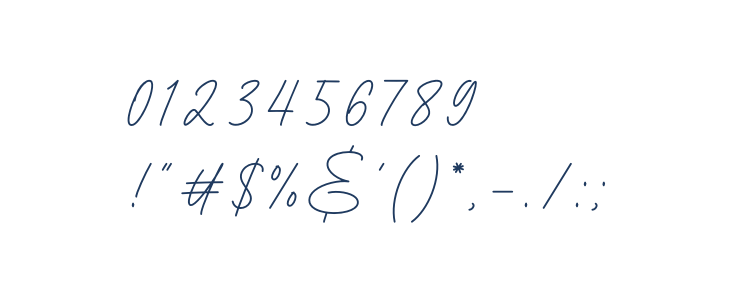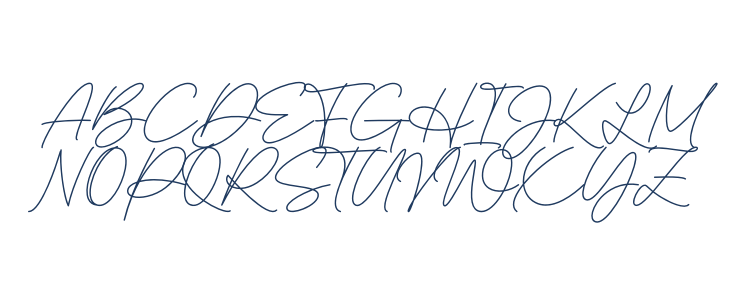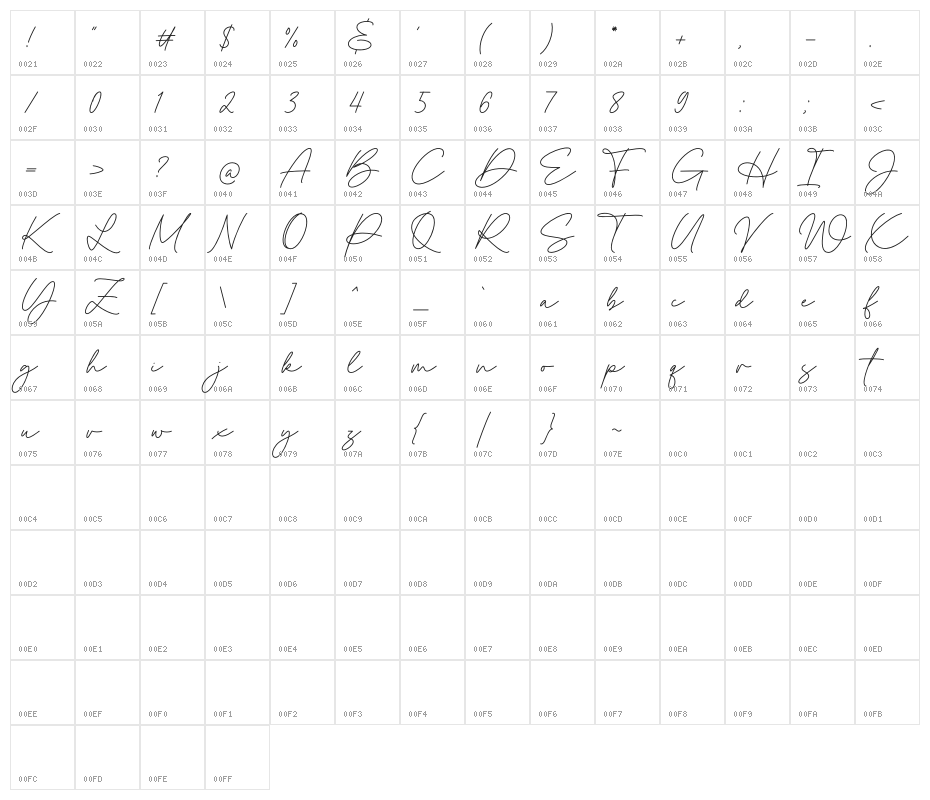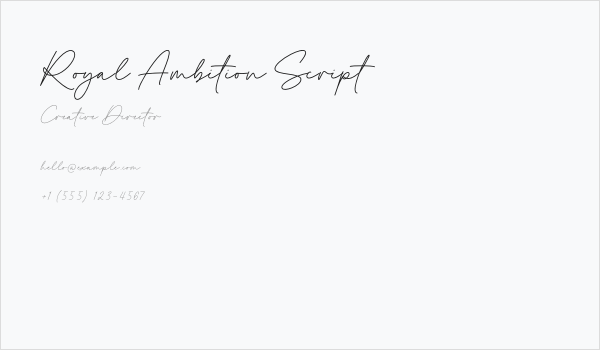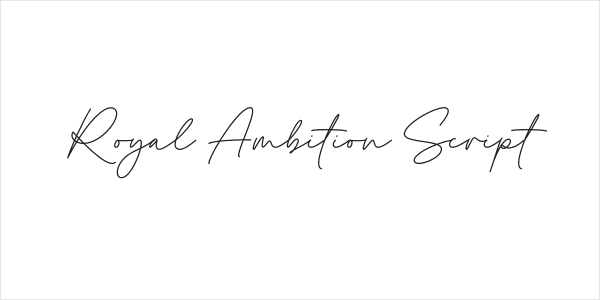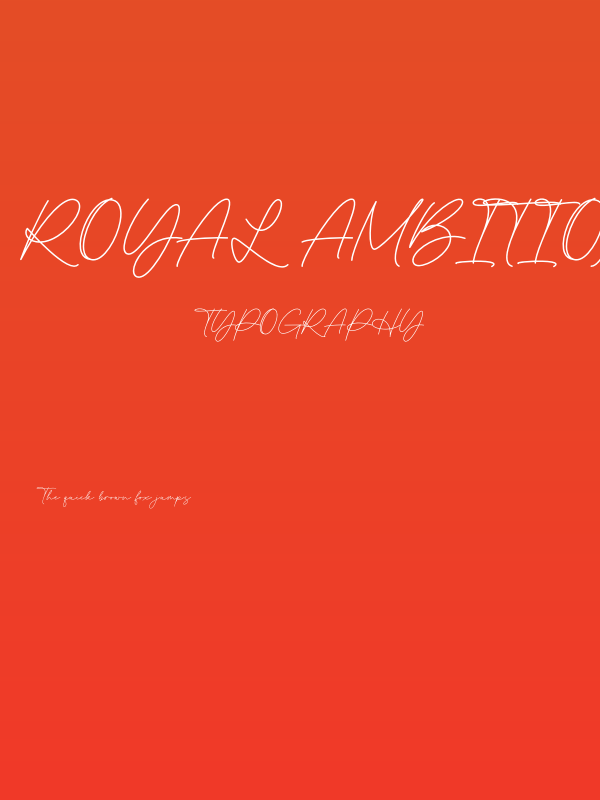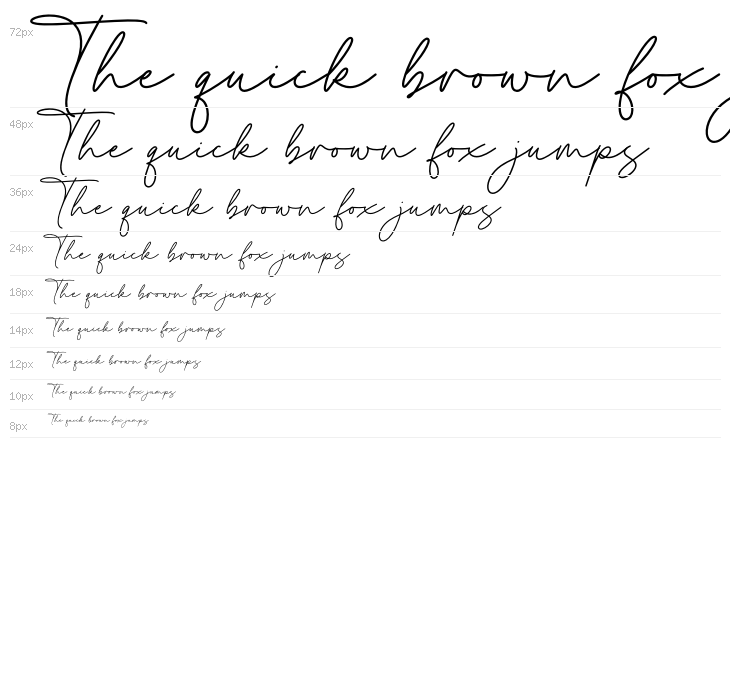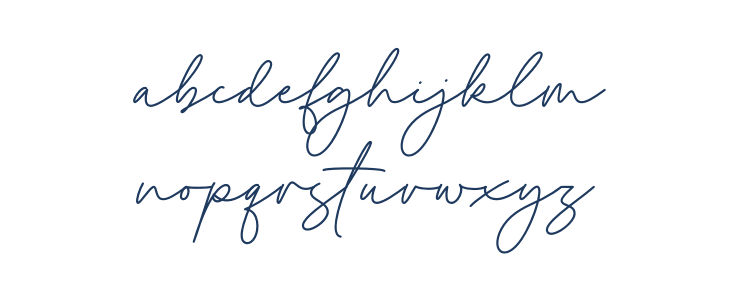
Royal Ambition Script Font
Royal Ambition Script Description
A flowing, elegant script font with a handwritten appearance, featuring thin, continuous strokes and natural, fluid connections between letters. The characters are slightly slanted, with high ascenders and deep descenders, giving it a graceful and airy feel.
| Overall Style | Decorative, Elegant, Handwritten |
| Use Case | Logos, Headlines, Invitations, Personal notes |
| Proposed Projects | Wedding invitations, personal branding, greeting cards, social media graphics, elegant packaging. |